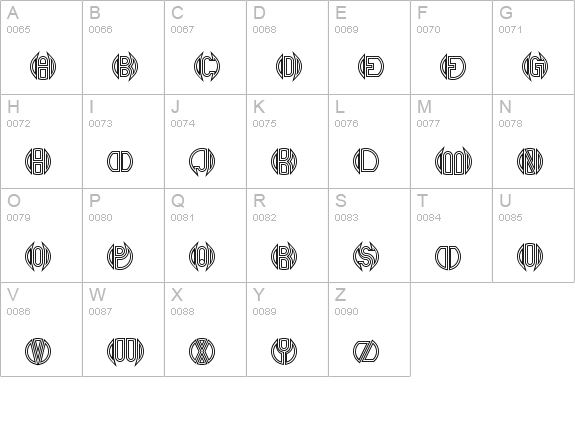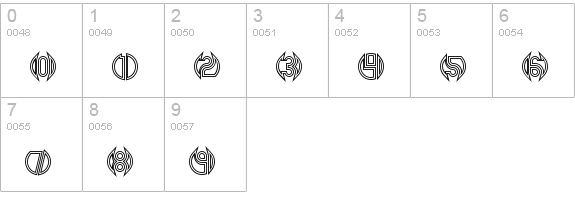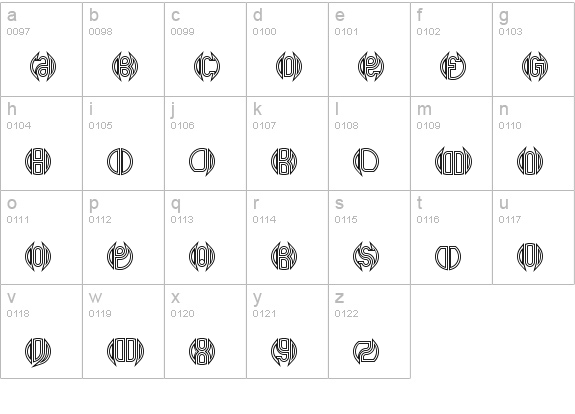
Double Bogey BRK font is a unique and playful typeface that is perfect for adding a touch of fun to your design projects. With its bold and quirky appearance, this font is sure to make a statement and grab attention. Whether you are creating posters, invitations, or branding materials, Double Bogey BRK will bring a fresh and energetic look to your work. What's even better is that Double Bogey BRK font is completely free to download at FontsMarket.com. This means you can easily access this eye-catching font and use it in any personal or commercial project without any restrictions. So why wait? Add a touch of whimsy to your designs with Double Bogey BRK font today!